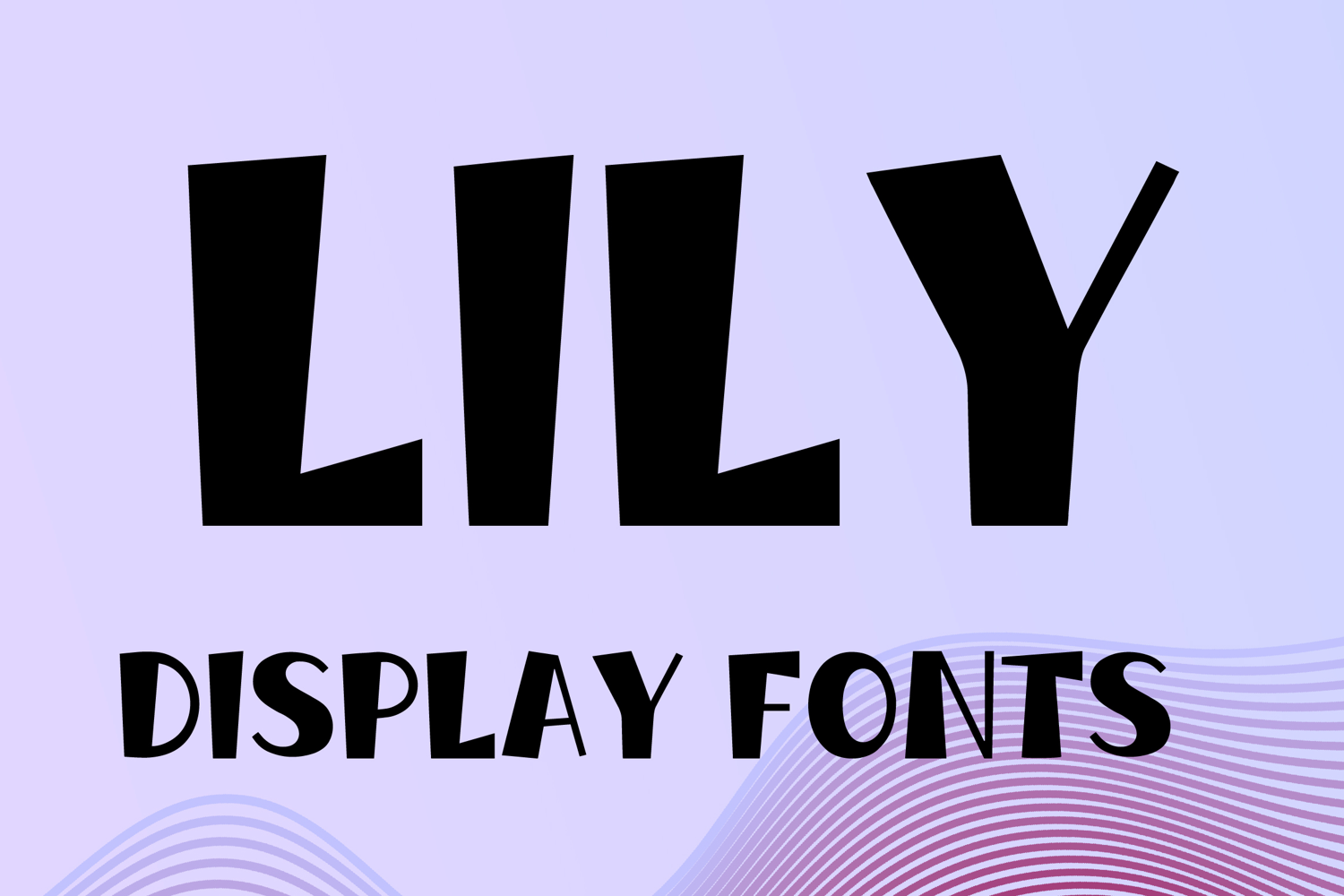
LILY
LILY is a bold display font with a tall geometric style and playful modern character. Its uppercase letterforms feature strong angular shapes, slightly tapered proportions, and distinctive cut details that create a clean, stylish, and eye-catching look. Designed with uppercase letters A–Z and numbers 0–9, LILY is perfect for branding, posters, packaging, logos, headlines, and social media graphics that need a modern and memorable statement.